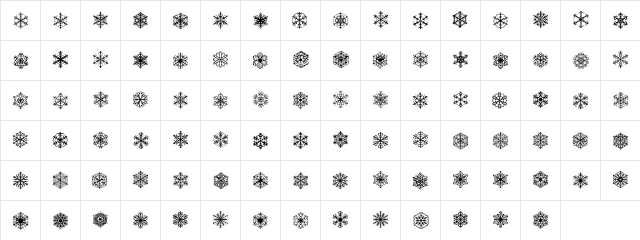
Faux Snow BRK Regular Font Preview
Faux Snow BRK Regular
Faux Snow BRK Regular Font Details
| Foundry | ƎIGMA FONTS |
| Designer | ƎIGMA FONTS - Brian Kent |
Design Context for Faux Snow BRK Typeface
Faux Snow BRK is a composed and adaptable typeface that performs quietly and consistently across a wide range of design contexts.